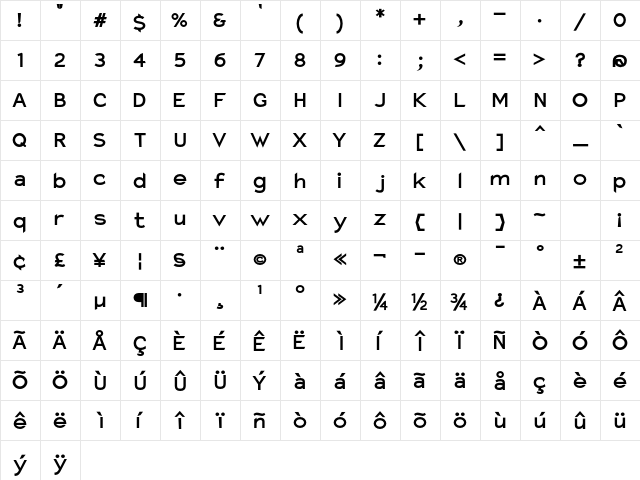
Charger ExBd
| Foundry | Cannot Into Space Fonts |
| Designer | Jasper |
Design Context for Charger Typeface
Charger takes a measured approach to typography — its balanced proportions and neutral character make it a reliable workhorse for both digital and print work. Its bold stroke weight gives it real presence on the page.